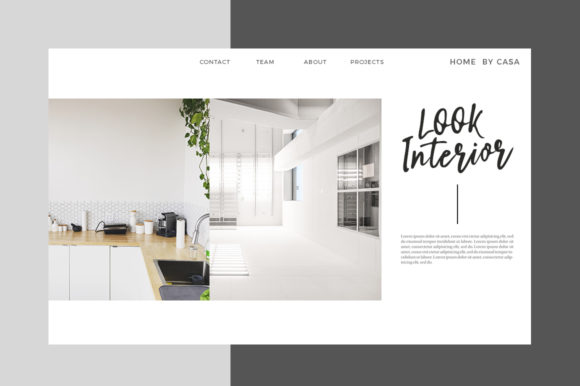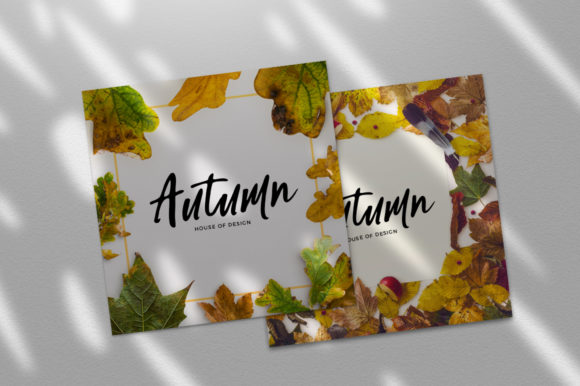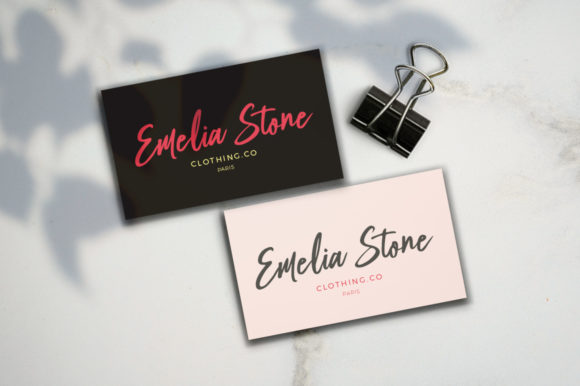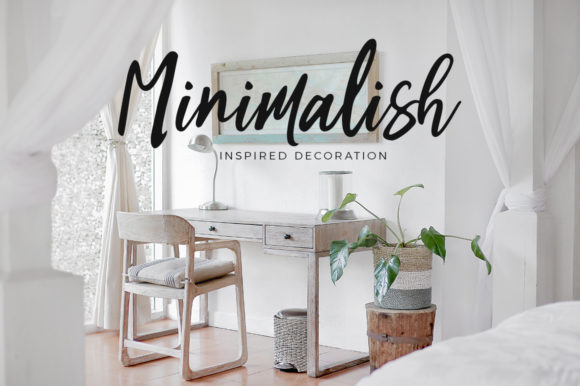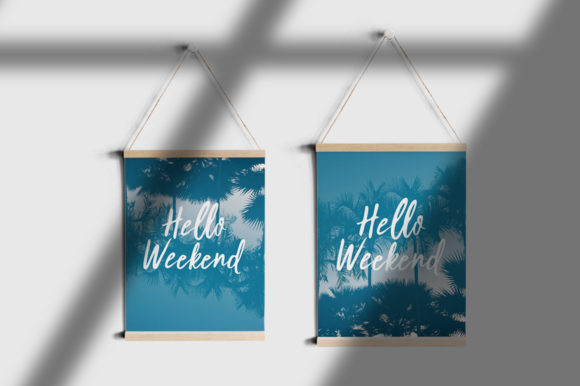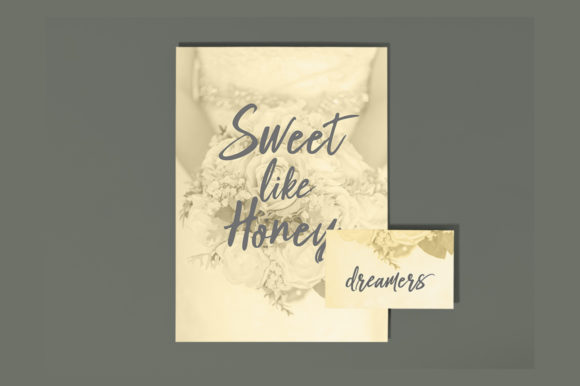
Celiya Script Font: A Modern and Elegant Addition to Your Design Arsenal
Are you tired of using the same old fonts in your designs? Look no further than the stunning Celiya Script Font! This modern and light script font is sure to capture the attention of your audience with its unique style. In this article, we’ll dive into the world of Celiya and explore what makes it so special.
What is Celiya Script Font?
Celiya is a beautiful script font that exudes elegance and sophistication. Its modern design makes it perfect for a wide range of projects, from wedding invitations and branding materials to social media graphics and blog posts. With its light and airy feel, Celiya is sure to add a touch of whimsy and romance to any design.
Unique Features of Celiya Script Font
So, what sets Celiya apart from other script fonts on the market? Here are just a few of its unique features:
• Modern and light design: Celiya’s sleek and contemporary design makes it perfect for designers who want to add a touch of sophistication to their work.
• Unique style: With its flowing lines and delicate curves, Celiya has a one-of-a-kind style that’s sure to make your designs stand out.
• Elegant and refined: Whether you’re designing for a luxury brand or a more laid-back lifestyle brand, Celiya’s elegant and refined aesthetic is sure to impress.
Celiya Script Font is a versatile font that’s perfect for a wide range of design applications. Here are just a few ways you can use Celiya in your work:
• Wedding and event design: Celiya’s elegant and romantic style makes it perfect for wedding invitations, save-the-dates, and other event materials.
• Branding and packaging: With its modern and sophisticated aesthetic, Celiya is a great choice for branding and packaging design.
• Social media graphics: Add a touch of elegance to your social media graphics with Celiya’s beautiful script font.
• Blog and website design: Use Celiya to add a touch of whimsy and romance to your blog or website.
Tips for Using Celiya Script Font
Here are a few tips for getting the most out of Celiya Script Font:
• Pair with bold fonts: Celiya’s light and airy feel makes it a great pairing with bold, sans-serif fonts.
• Use for headlines and titles: Celiya’s elegant and refined aesthetic makes it perfect for headlines and titles.
• Experiment with colors: Celiya looks great in a range of colors, from soft pastels to rich jewel tones.
In conclusion, Celiya Script Font is a modern and elegant addition to any design arsenal. With its unique style, elegant aesthetic, and versatile design, Celiya is sure to capture the attention of your audience and add a touch of sophistication to your work. Whether you’re a designer, crafter, or DIY enthusiast, Celiya is a font that’s sure to inspire and delight.